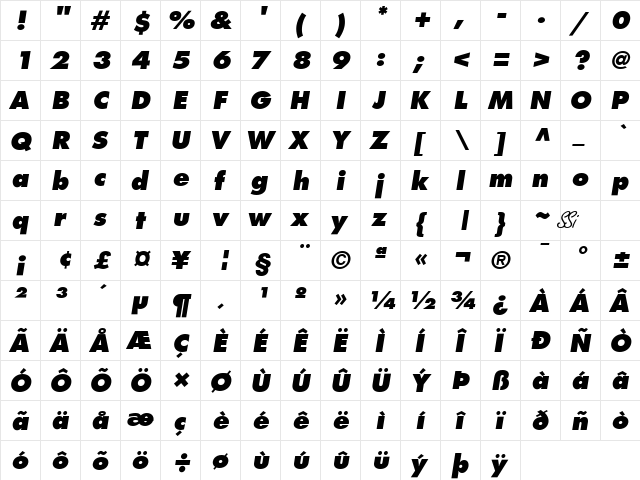
Kudos Black SSi Extra Bold Italic
Design Context for Kudos Black SSi Typeface
Kudos Black SSi offers clean, dependable letterforms without strong stylistic allegiance, making it a practical choice for designers who need flexibility. The slanted form adds forward momentum and visual energy. Its bold stroke weight gives it real presence on the page.
Pro Tip: Try Kudos Black SSi for annotation and caption copy alongside an upright companion — the contrast in angle creates a dynamic but ordered typographic system.